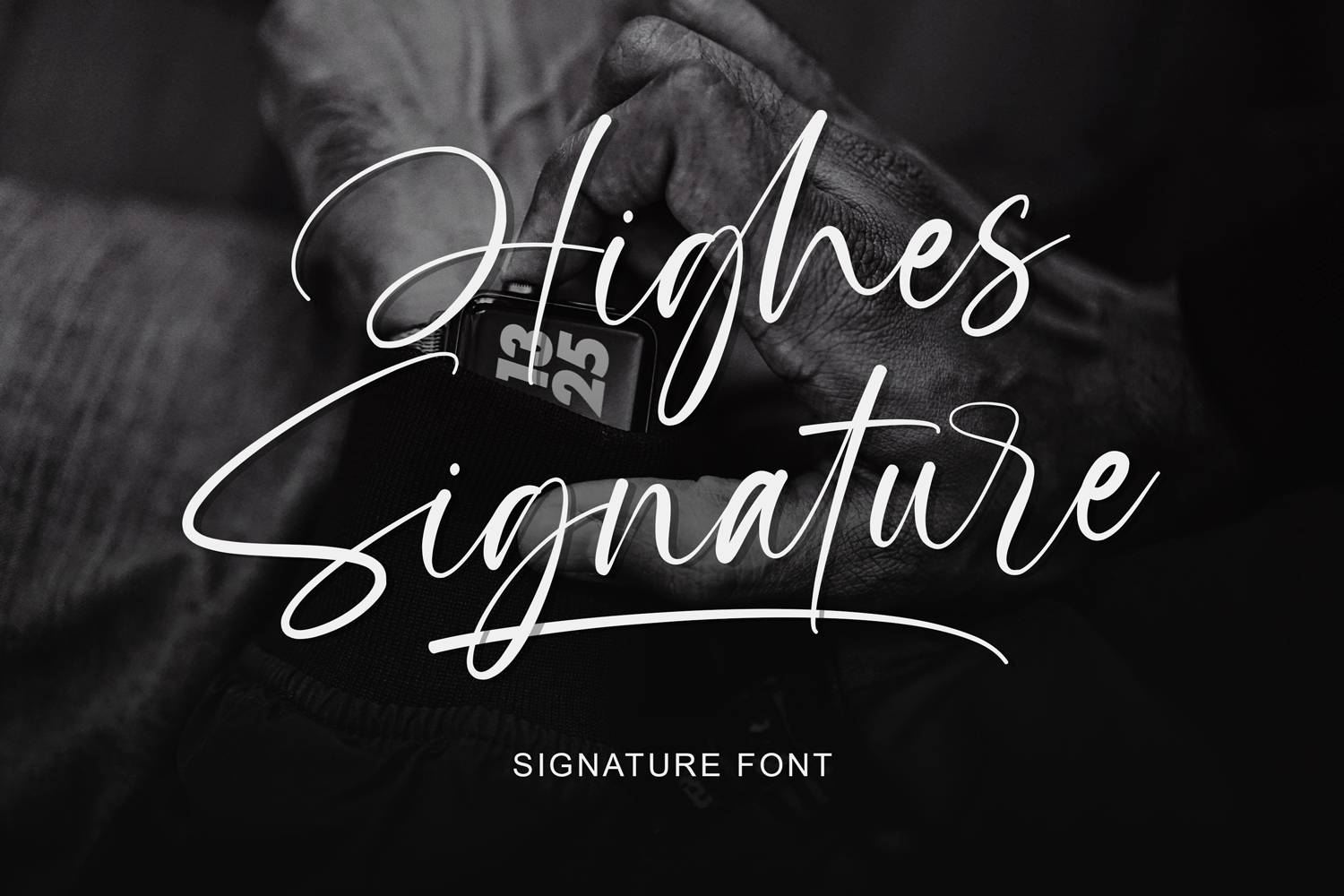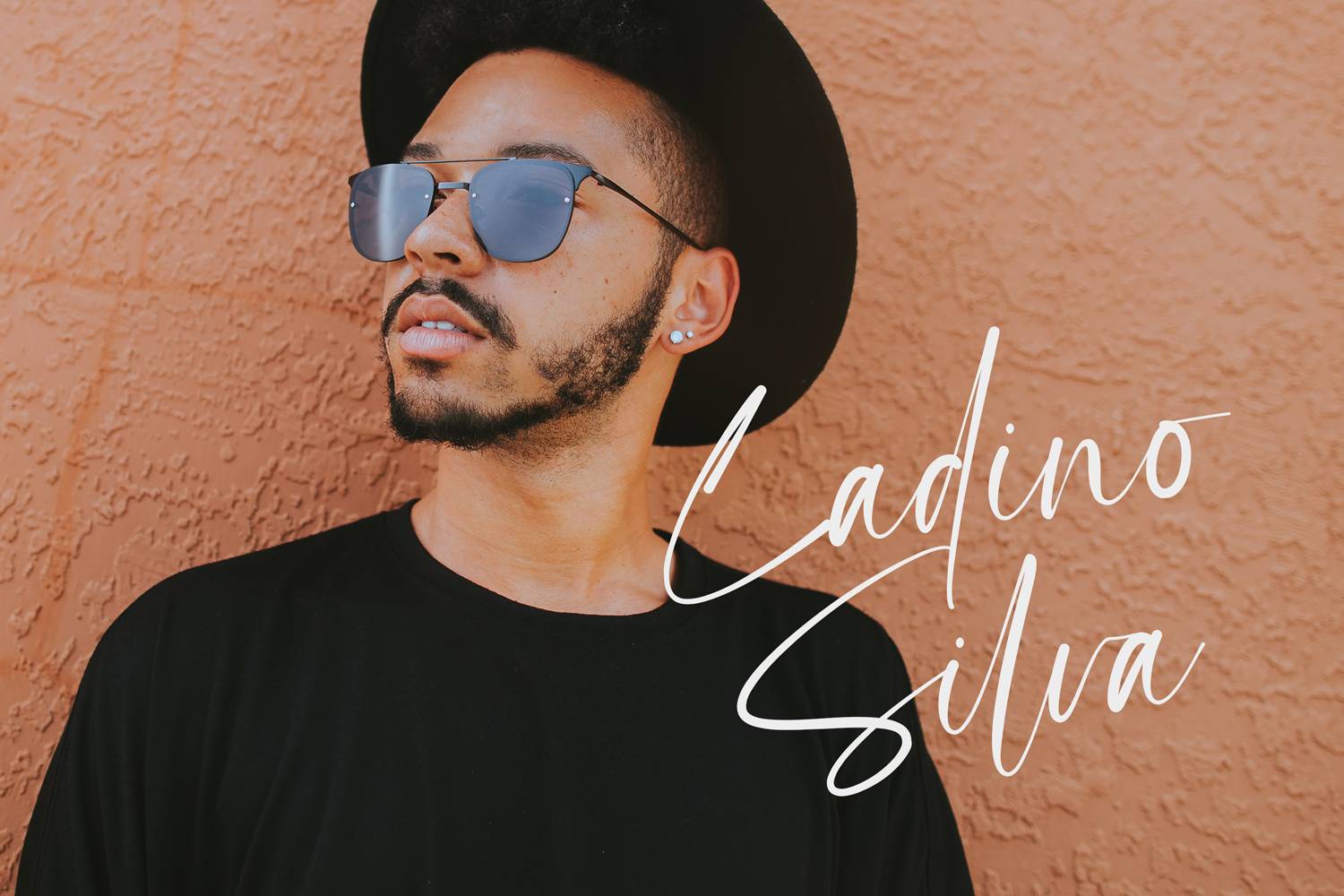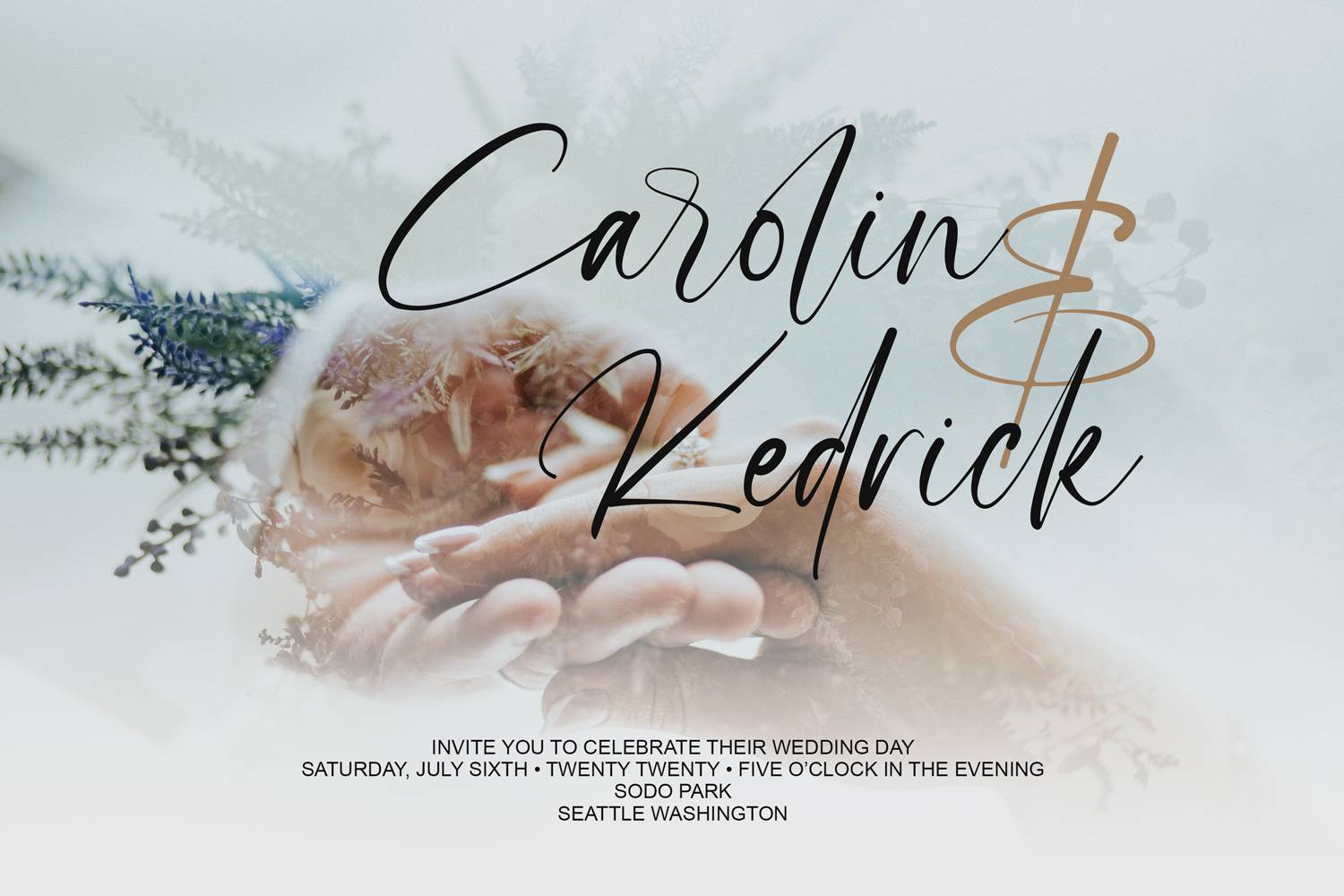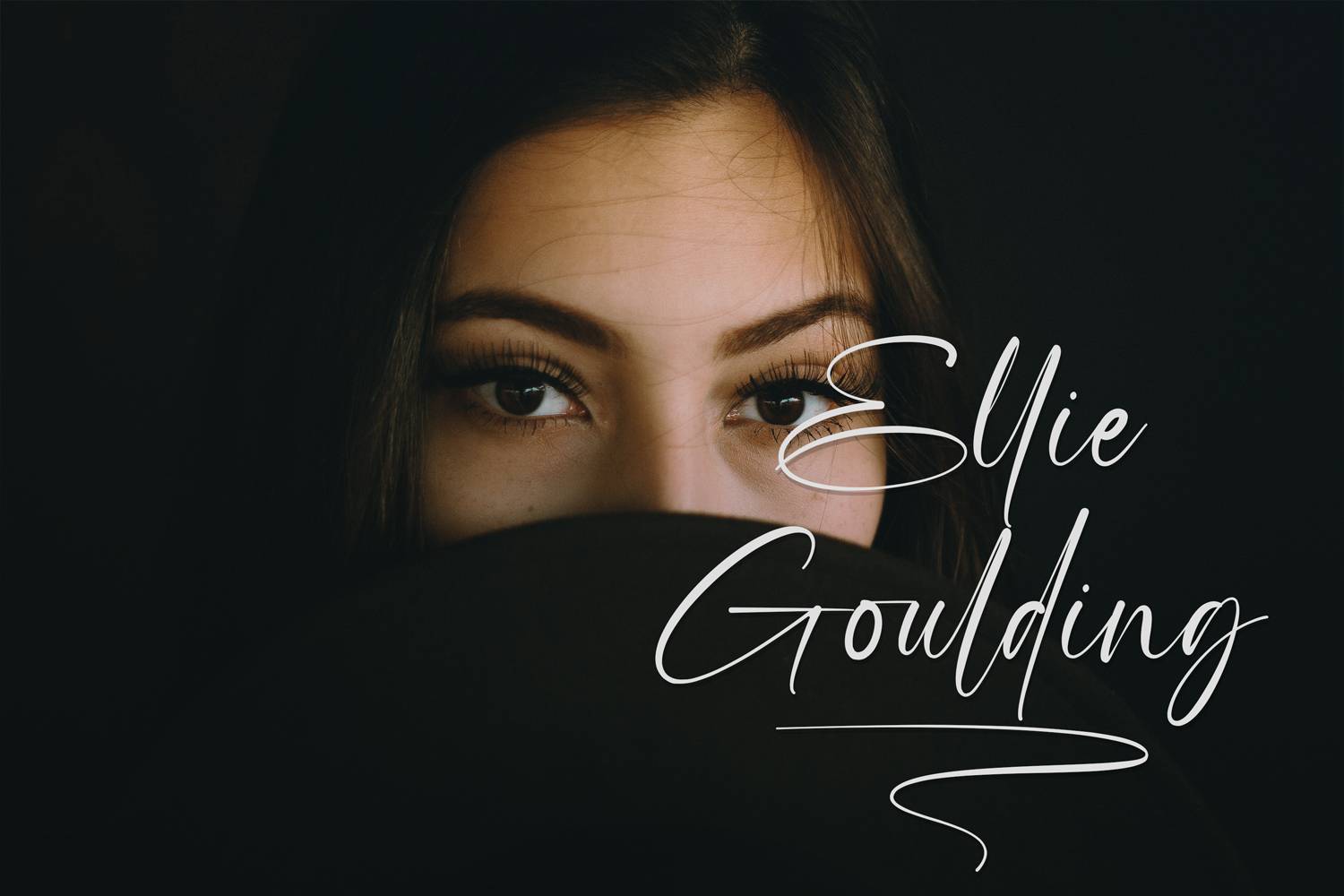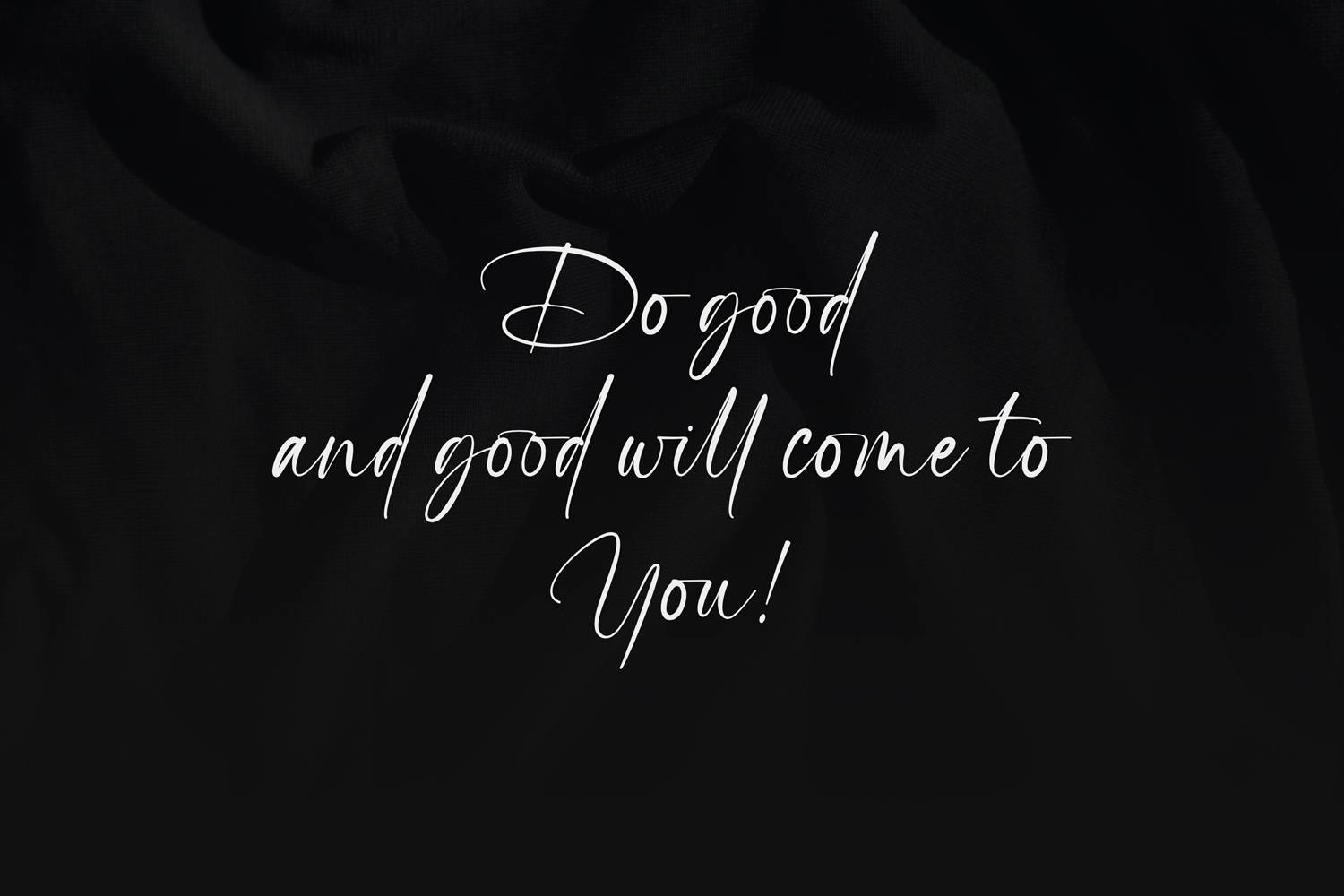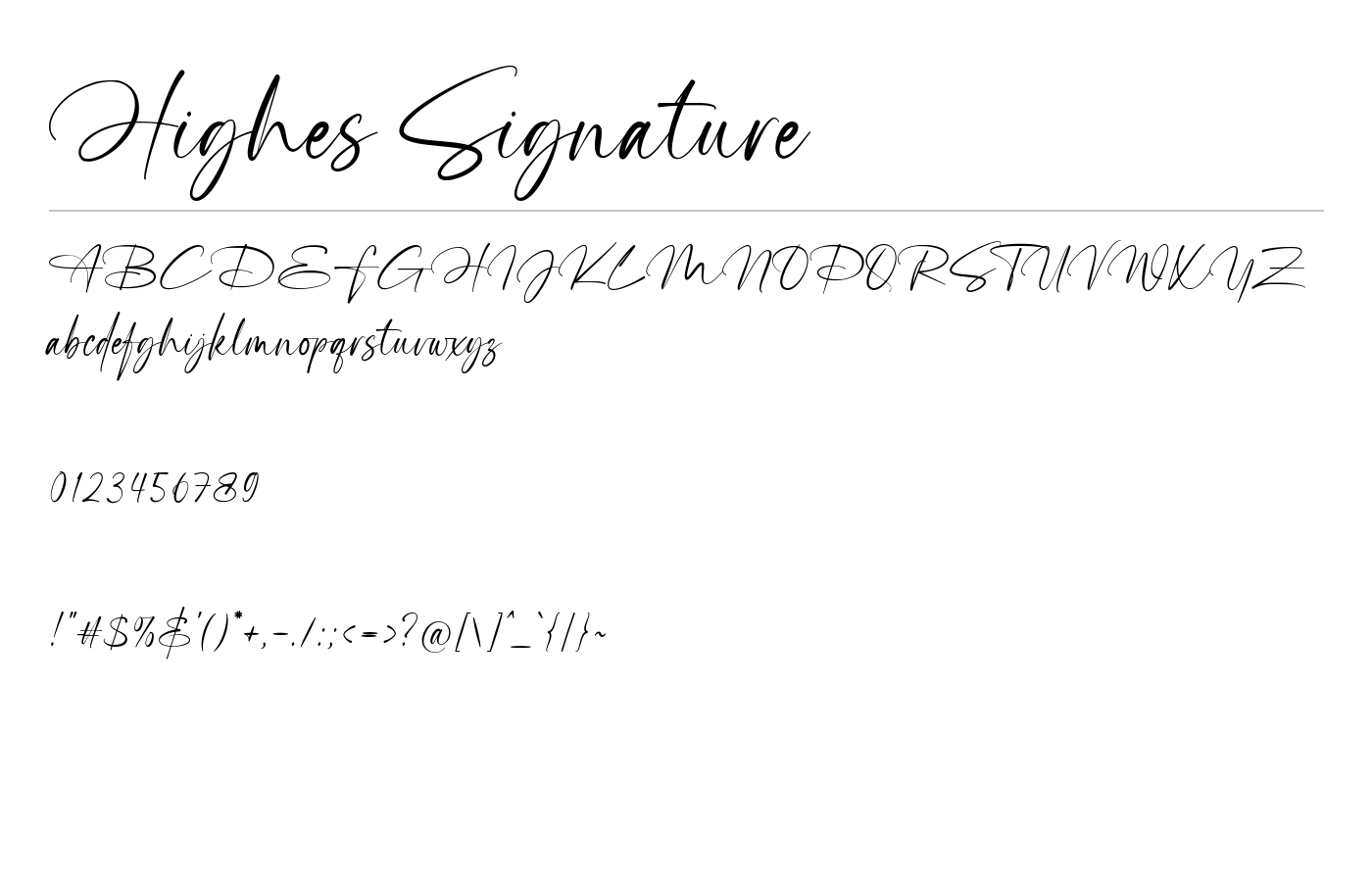
Highes Signature is an elegant handwritten script font characterized by its delicate, flowing strokes and refined calligraphic style. With its natural, airy feel and smooth connections, it conveys a sophisticated, personal touch perfect for luxury branding, wedding invitations, and stylish logos. This font works beautifully where an intimate yet polished aesthetic is desired, adding charm and grace to headlines, packaging, and creative projects.
Highes Signature Font
About Highes Signature Font
| Font family | Highes Signature Font |
| Designer | Dwi Ahidian |